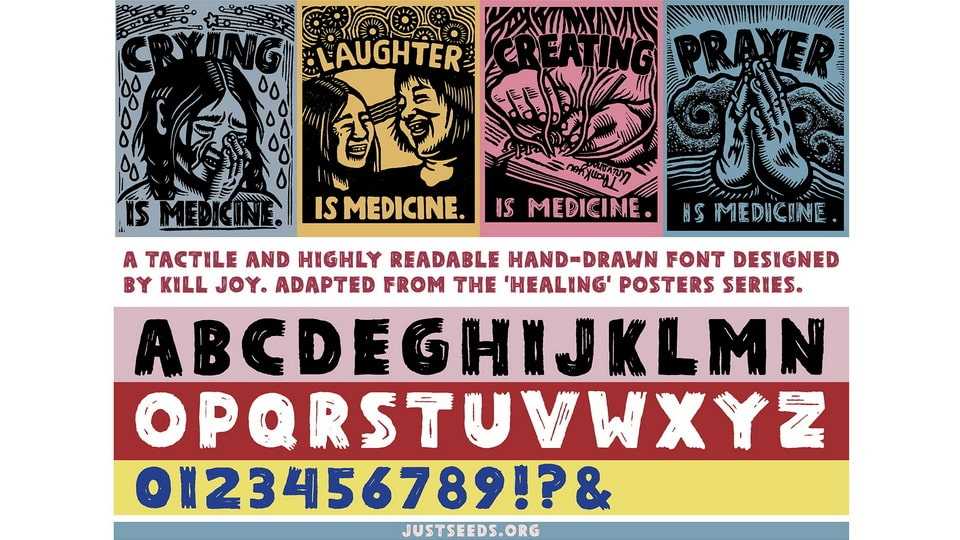
Download Medicine font, an expressive hand drawn typeface that was adapted from Kill Joy’s ‘Healing’ poster series. This font captures the raw energy and organic charm of brush lettering, infusing your designs with a sense of dynamism and personality.
Designer: Kill Joy